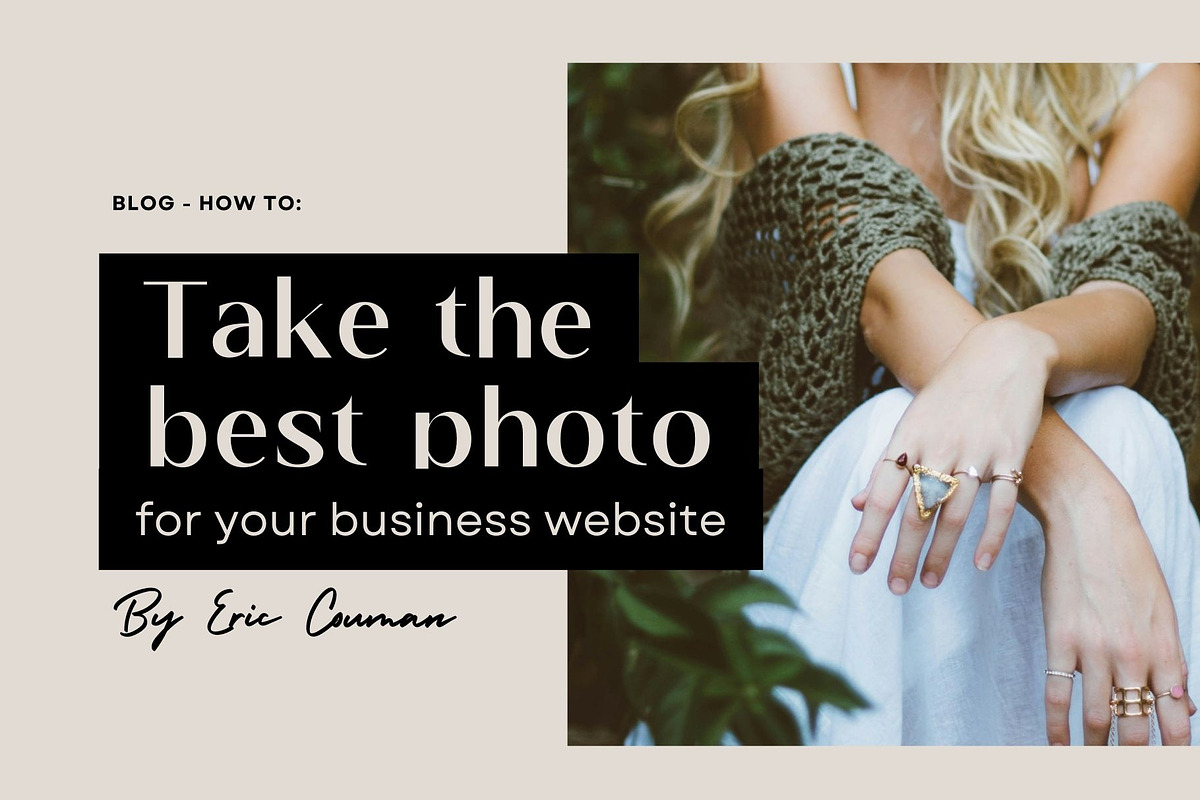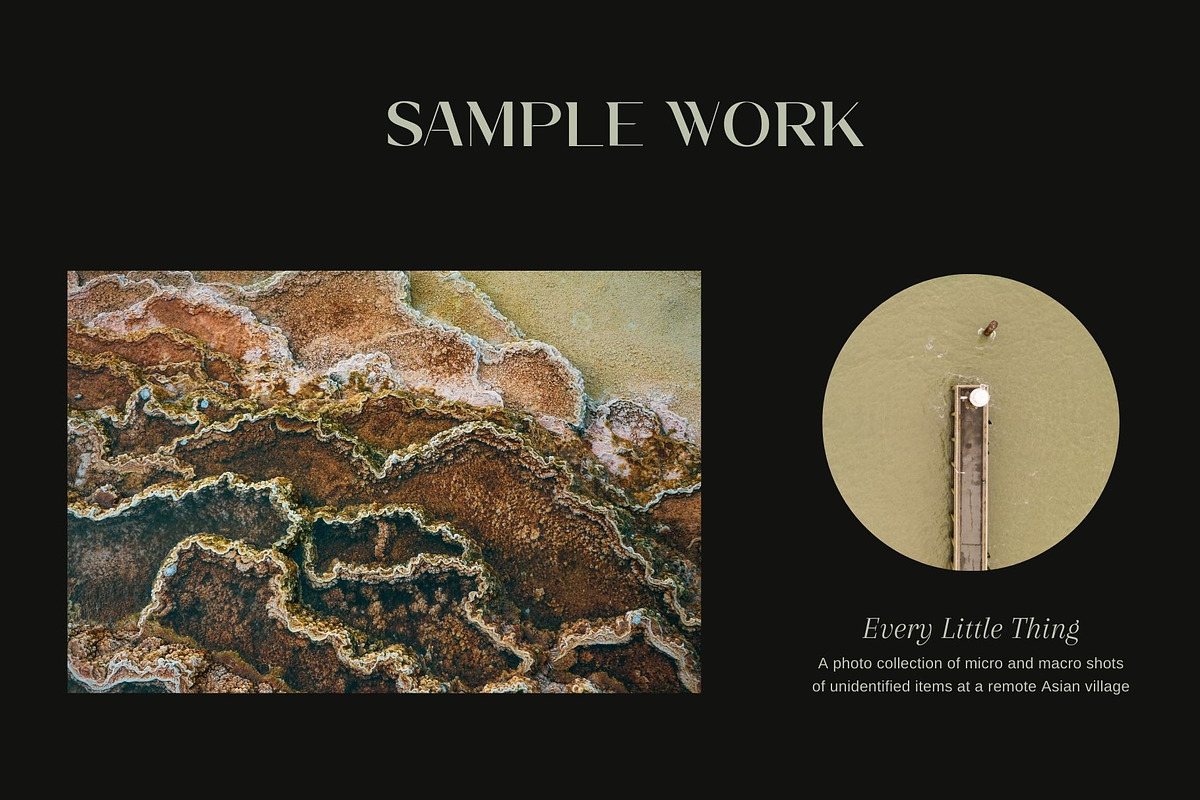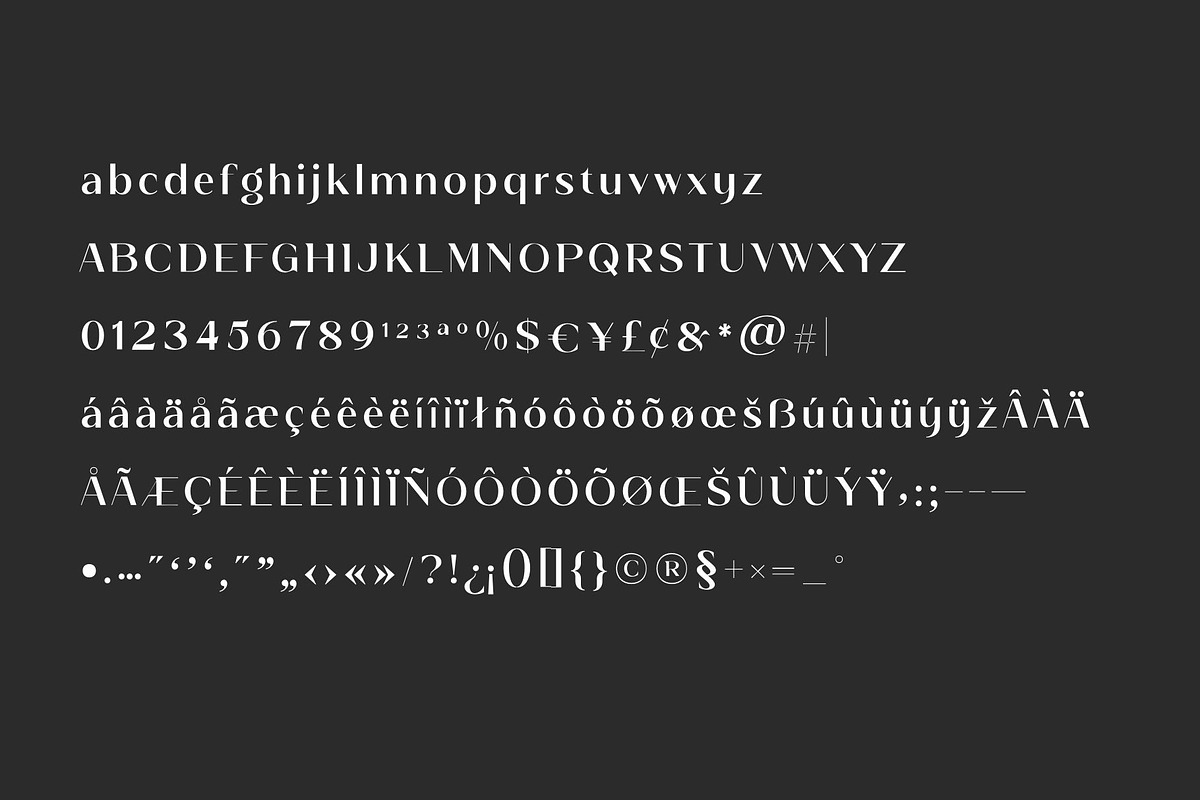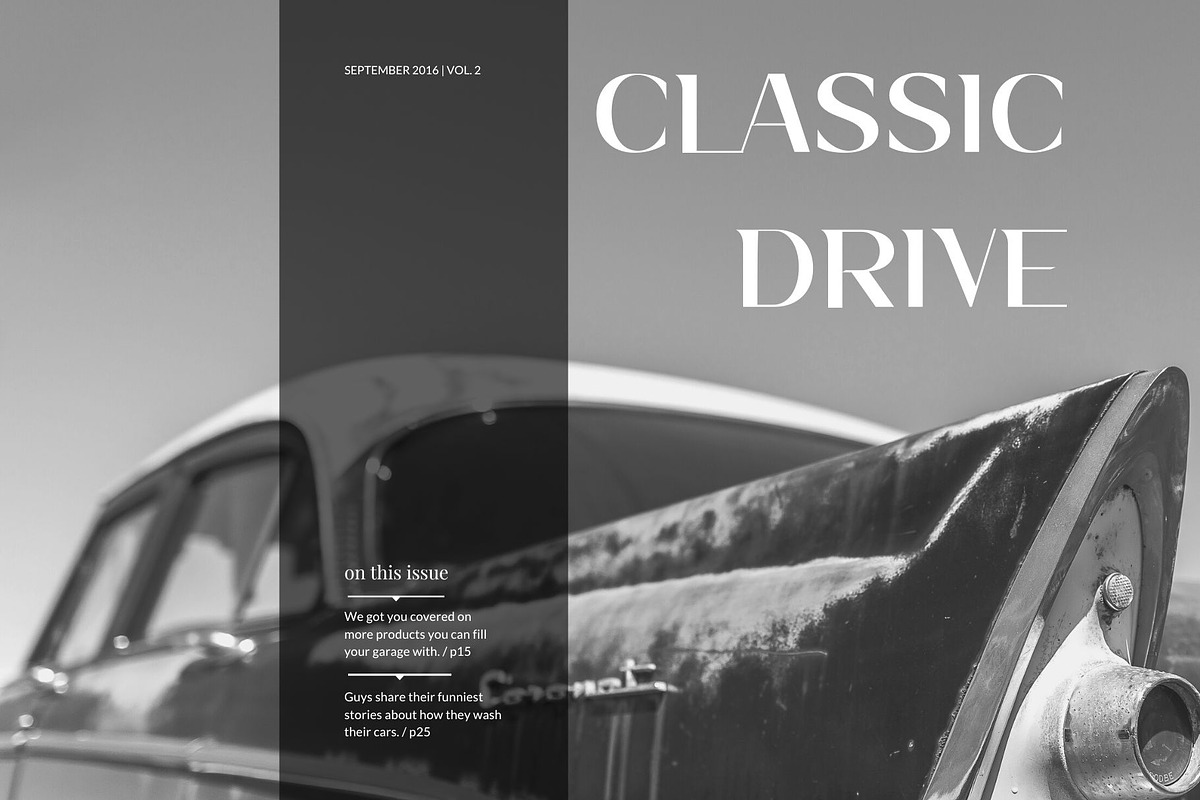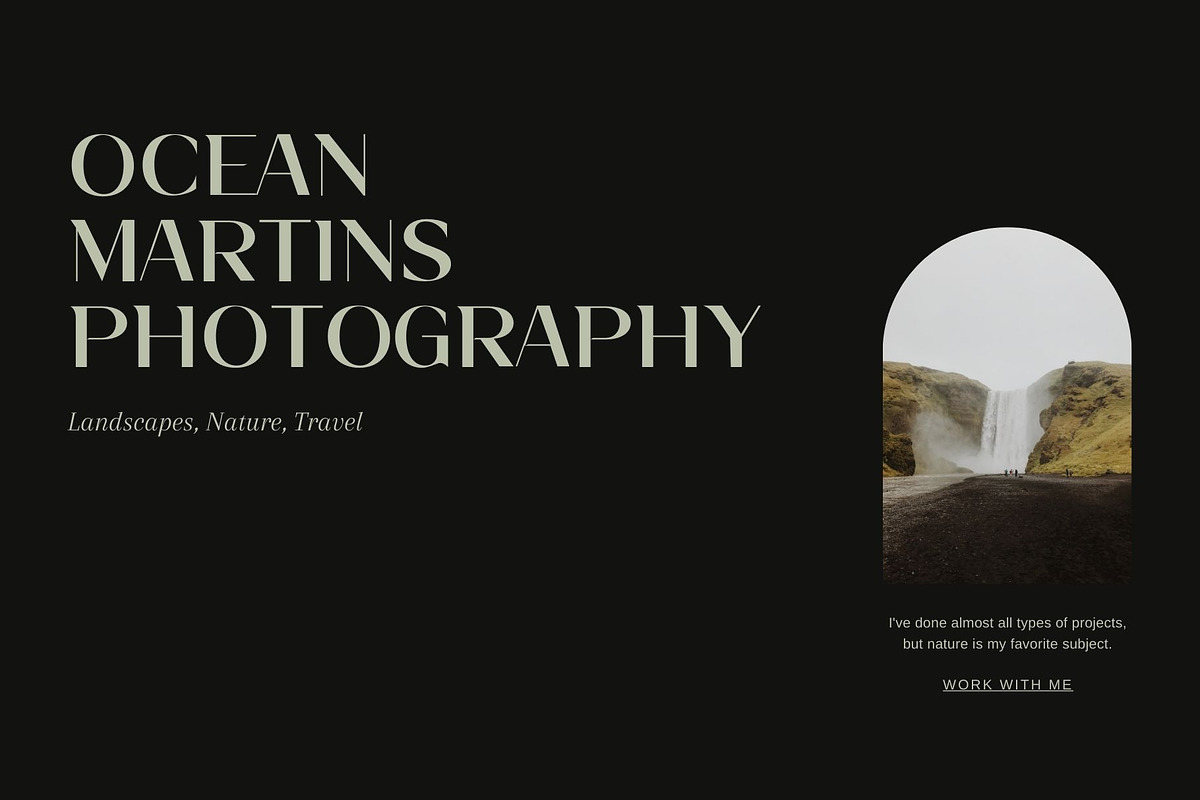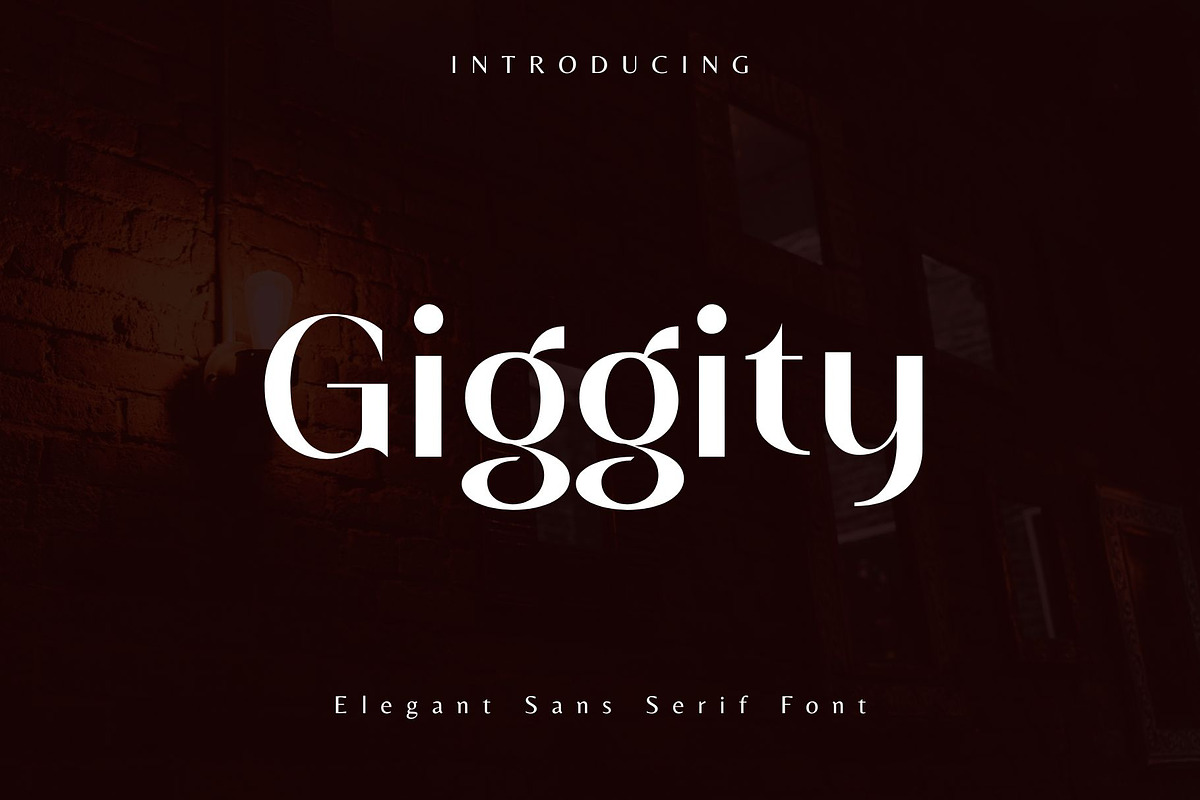
Giggity Elegant Sans Serif
Discover Giggity Elegant Sans Serif font—a blend of sophistication and modern charm. Its sleek lines add class to any project, from logos to headlines. With timeless elegance, Giggity enriches your designs effortlessly.